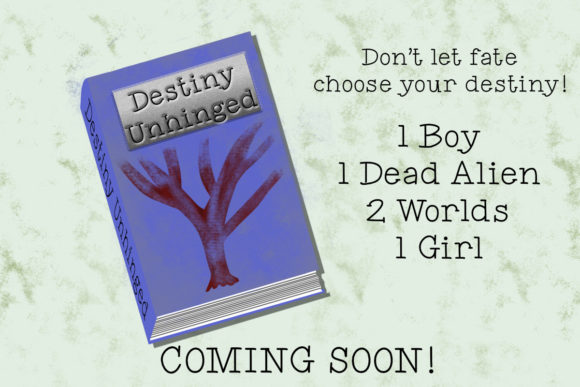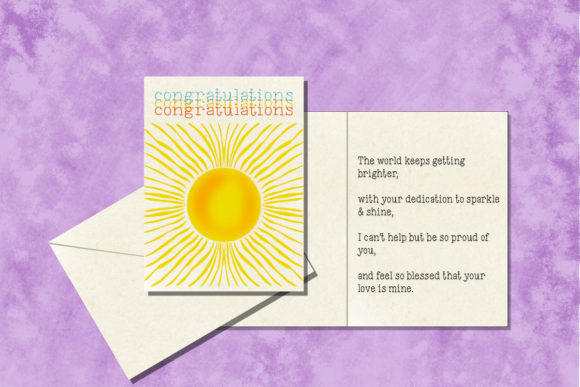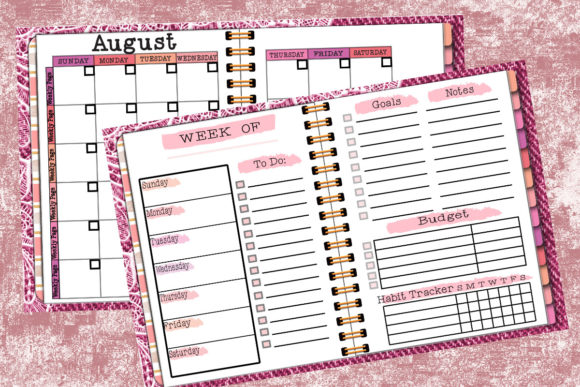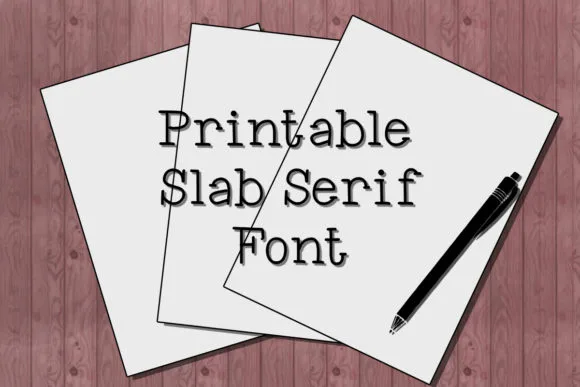
Printable Font
PRINTABLE FONT SPECIMEN
Printable is a cool and adaptable slab serif font. It has a clean, thin and smooth vibe and it will be a hit for any design that you want to add it to.